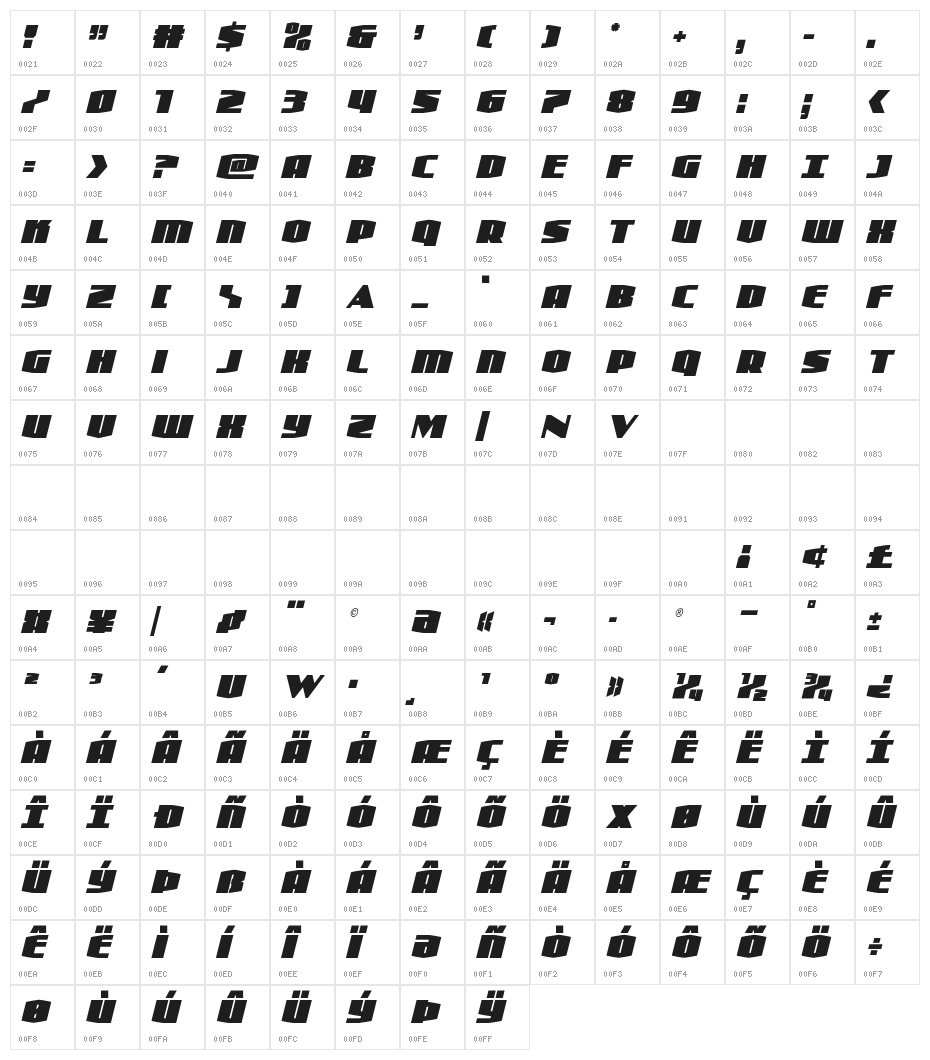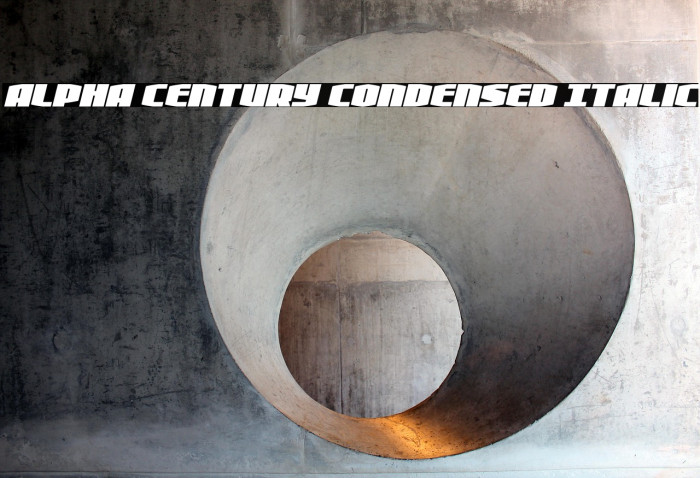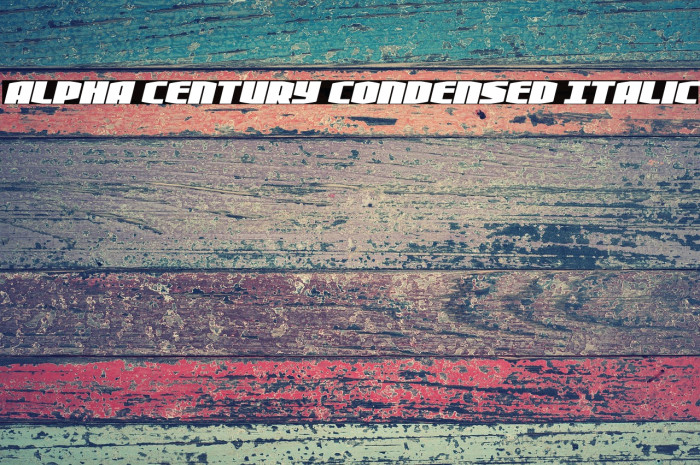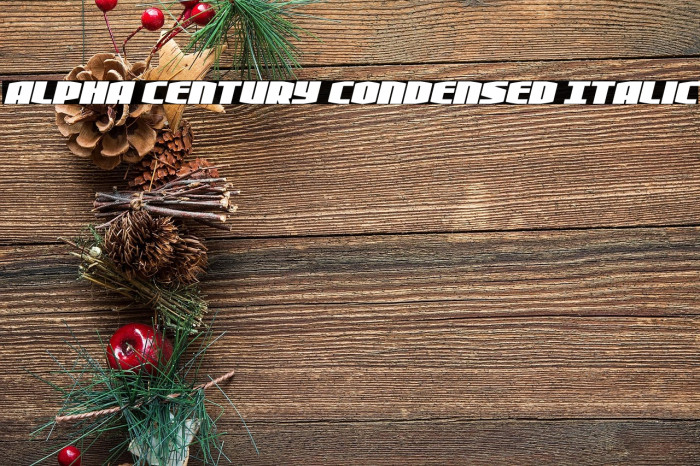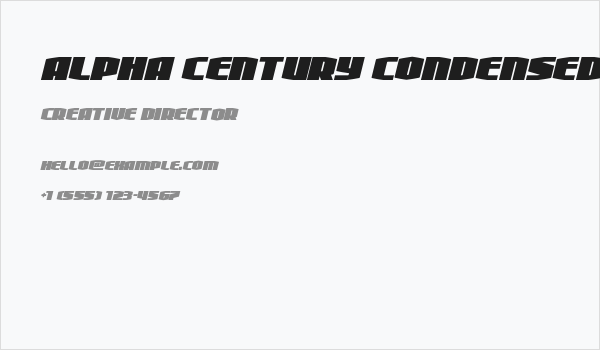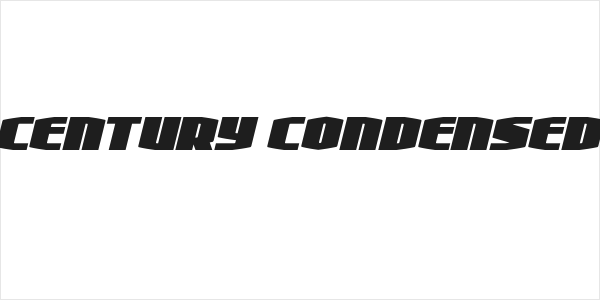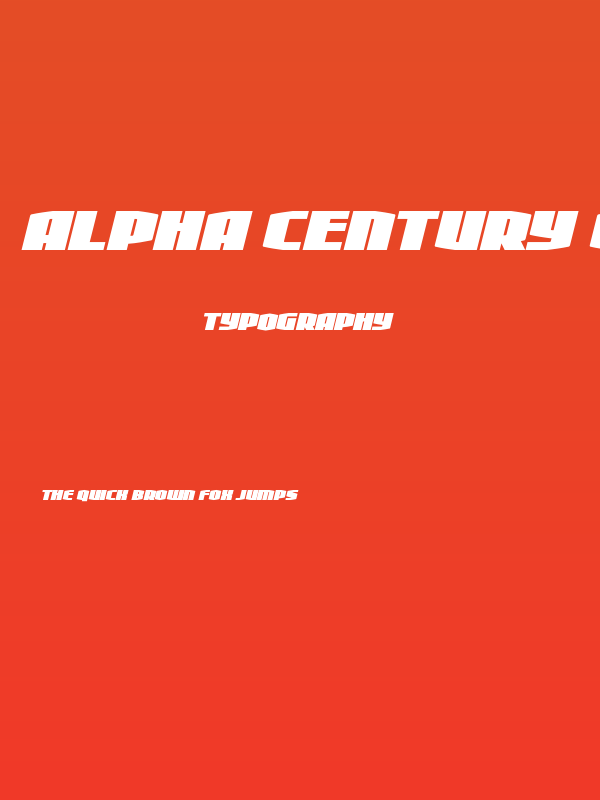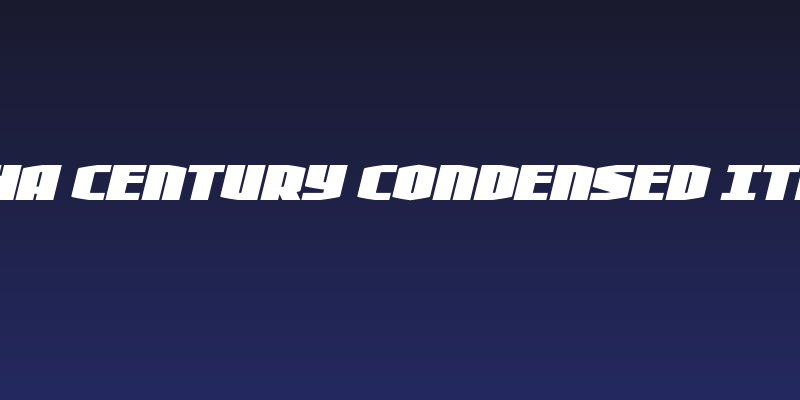
Alpha Century Condensed Italic Font
Alpha Century Condensed Italic Description
This font exhibits a bold and dynamic style with a condensed and italicized form. The characters are angular and geometric, giving a futuristic and edgy appearance. The uppercase and lowercase letters maintain a consistent slant, enhancing the italic effect. The numbers and special characters follow the same design principles, ensuring uniformity across all glyphs. The bold weight and condensed width make it suitable for impactful and attention-grabbing designs. The high contrast in stroke thickness adds to the dramatic and modern feel of the font.
| Proposed Projects | Ideal for sci-fi themed posters, video game titles, branding for tech companies, and dynamic logo designs. |